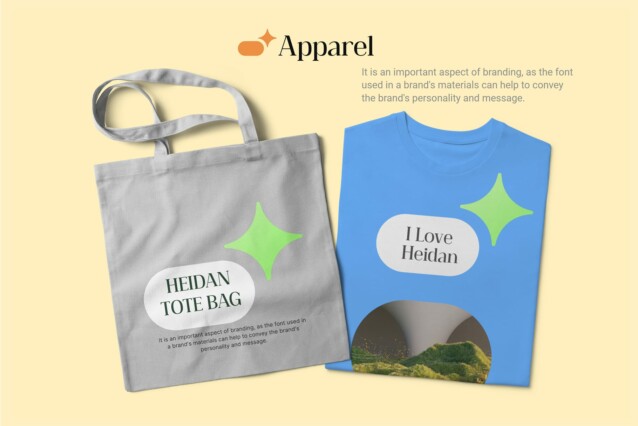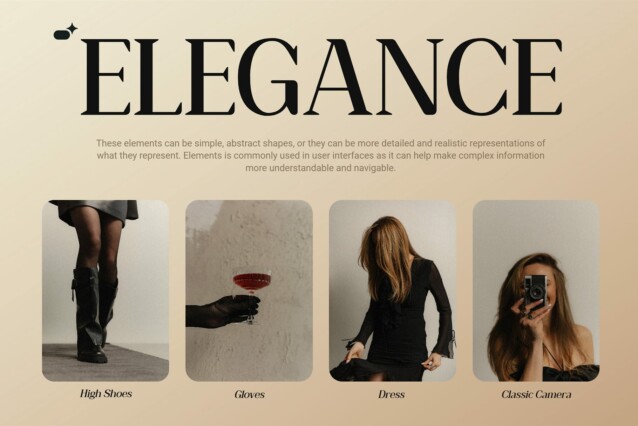
Heidan Rounded Font
Heidan Rounded Font is a serif typeface with striking high contrast, elevating its elegance. The bold strokes and delicate curves create a captivating visual impact.
Rounded Edge Refinement The rounded edges of This font add a touch of refinement to its minimalist design. This subtle feature softens the overall appearance, making it both approachable and modern.